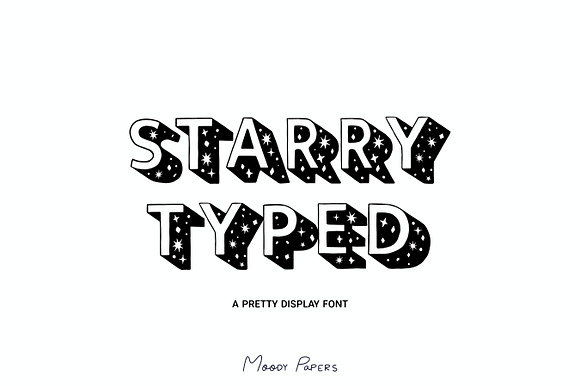
Starry Typed - Hand drawn OTF font
Starry Typed Display Font ✨ Super cute and awesome hand-drawn SVG font.
Why Starry Typed - Hand drawn OTF font is worth a look
Starry Typed - Hand drawn OTF font by MoodyPapers fits naturally into Branding, posters, packaging, typography.